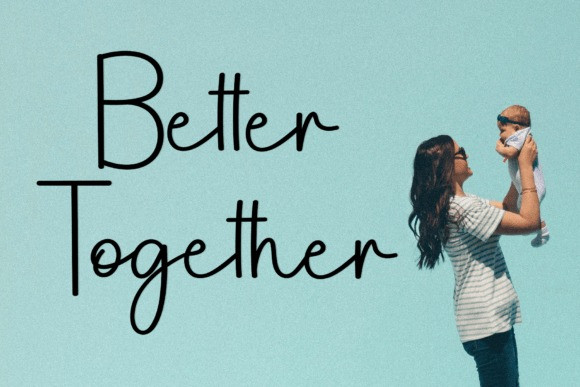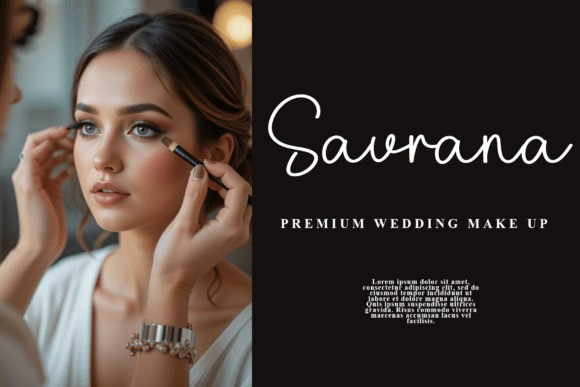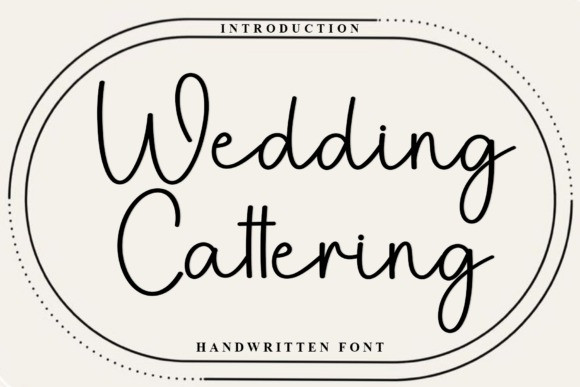
Wedding Cattering Font
Wedding Cattering Font is a lovely and timeless handwritten font. It is the best choice for creating eye catching logos, branding and quotes. Every letter has a unique and beautiful touch, which will make your design come alive!